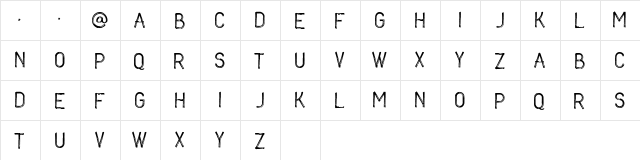
KILIMANJARO Regular
Design Context for KILIMANJARO Typeface
KILIMANJARO offers clean, dependable letterforms without strong stylistic allegiance, making it a practical choice for designers who need flexibility.